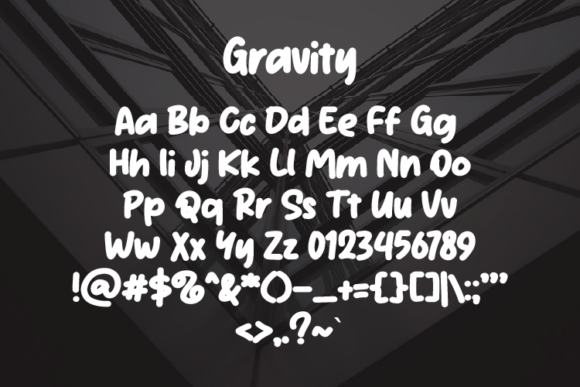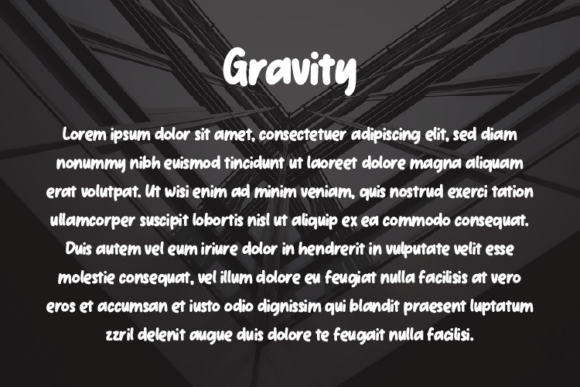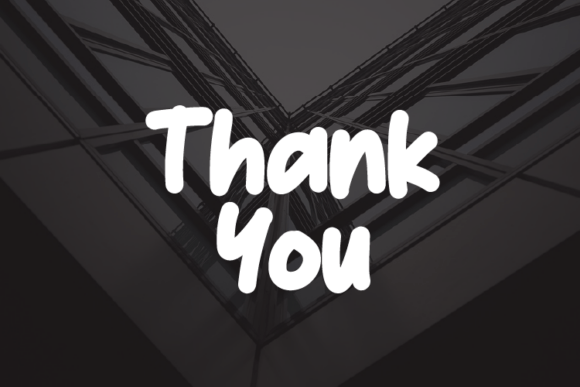
Introducing Gravity Font: Elevate Your Designs with Elegance and Readability
In the realm of typography, a font can make or break the visual appeal of a design. For designers and crafters seeking a modern, elegant, and highly readable typeface, Gravity Font emerges as an exceptional choice. This versatile font is meticulously crafted to ensure excellent readability across various media, making it an indispensable tool in your design arsenal.
What is Gravity Font?
Gravity Font is a contemporary typeface designed with flexibility in mind. Its primary goal is to provide a seamless reading experience across different platforms and applications. Whether you’re working on a digital project, a print publication, or a web page, Gravity Font ensures that your text is not only visually appealing but also effortlessly readable.
Key Features of Gravity Font
- Modern and Elegant Design: Gravity Font boasts a sleek and sophisticated design that instantly elevates the aesthetic of any project.
- Excellent Readability: The font’s design prioritizes clarity and readability, making it perfect for body text, headings, and more.
Advantages of Using Gravity Font
Choosing Gravity Font for your projects comes with numerous benefits:
- Versatility: Its modern design and excellent readability make it suitable for a wide range of applications, from web design and digital media to print and office documents.
- Professional Look: The elegant design of Gravity Font gives your projects a professional and sophisticated look, enhancing your brand’s image.
- Cross-Platform Consistency: Gravity Font ensures that your typography remains consistent across different platforms and devices, which is crucial for brand identity.
Use Cases for Gravity Font
Gravity Font’s versatility makes it suitable for a variety of projects:
- Web Design: Enhance user experience with clear and elegant typography on your website or blog.
- Graphic Design: Use Gravity Font in brochures, posters, and flyers for a modern and professional look.
- Digital Media: Perfect for e-books, digital magazines, and presentations where readability and style are paramount.
- Office Documents: Elevate your reports, proposals, and presentations with a sophisticated and readable font.
Gravity Font is a powerful tool for designers and crafters looking to add a touch of elegance and modernity to their projects. Its excellent readability, versatile design, and wide compatibility make it an ideal choice for a multitude of applications. By incorporating Gravity Font into your design workflow, you can ensure that your typography not only looks great but also provides a superior reading experience across various media. Whether you’re a professional designer or a DIY enthusiast, Gravity Font is sure to become a staple in your creative toolkit.
Embrace the elegance and flexibility of Gravity Font in your next project. Experience firsthand how this modern typeface can elevate your designs and enhance readability across the board.